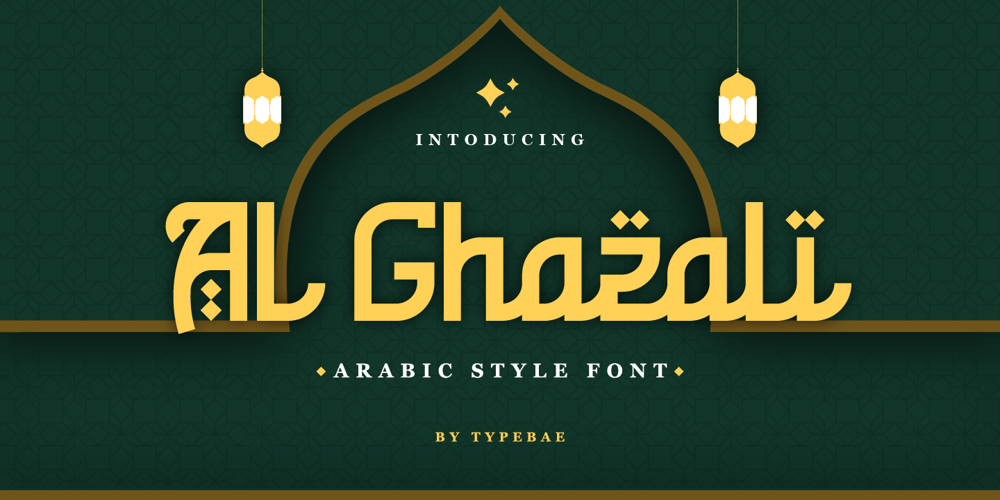
Al Ghazali Arabic Font Family was designed by Iqbal Pauji and published by Typebae. Al Ghazali Arabic contains 2 styles and family package options. Al Ghazali is a beautiful display font with an Arabic style. This font adds an authentic Middle Eastern touch to any text, making it perfect for design projects that require a unique and cultural aesthetic.Features: Uppercase and Lowercase letters Stylistic Alternates Numbering and Punctuations Multilingual Support PUA Encoded